Letter
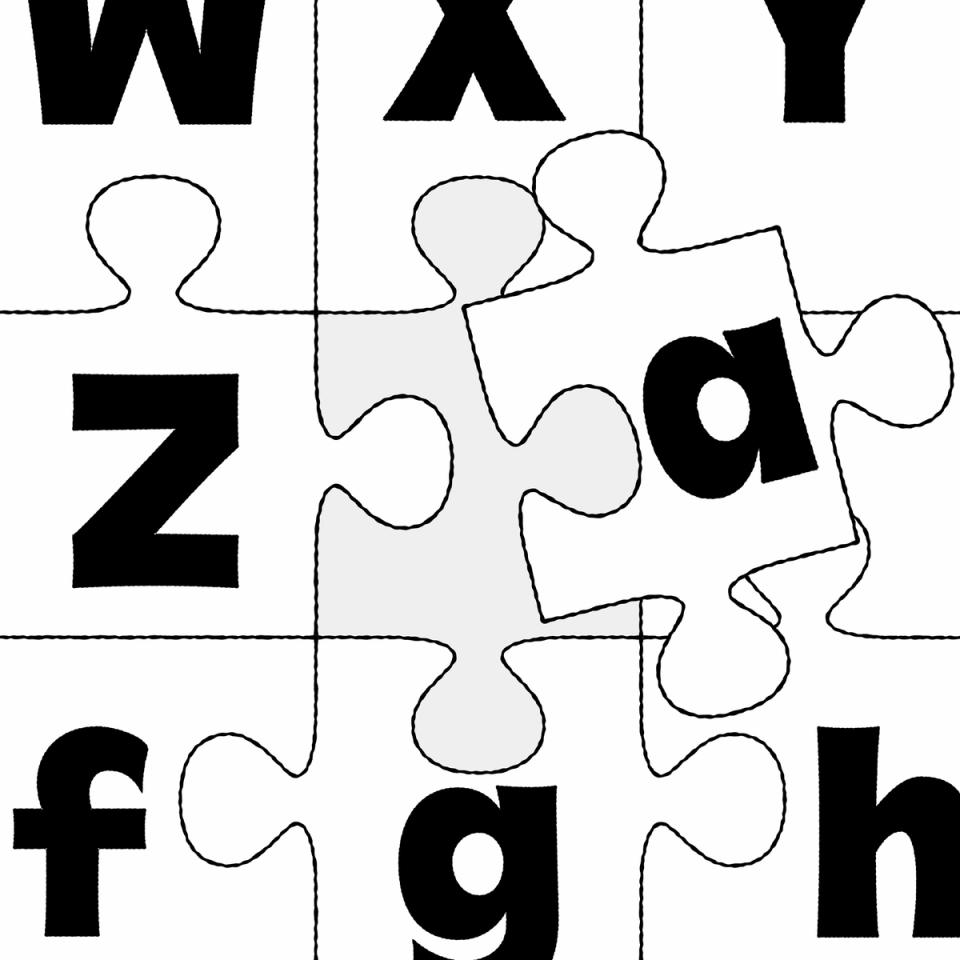
Letters are a type of characters used in an alphabet to represent the sounds of a spoken language.
The same letter can have multiple sounds due to different pronunciation in different languages, and one sound can be transcribed with various letters or characters. Some letters can also bear diacritics to have more or less subtle variations of pronunciation in some languages.
Linguistically, a letter is an abstract symbol, but it can appear in different glyph forms, such as cases (uppercase or lowercase), stylistic variants, or contextual forms.
FONT ENGINEERING HINT
In a font file, a letter is encoded as a character (with a unique Unicode code point) but it may correspond to multiple glyphs. For example, an a can have a single or double storey form.
Some letters can also be combined into a single glyph to form a ligature (such as fi or æ).
These substitutions are handled in the gsub (Glyph Substitution) table, while the character-to-glyph mapping is defined in the cmap (Character To Glyph Index Mapping) table.